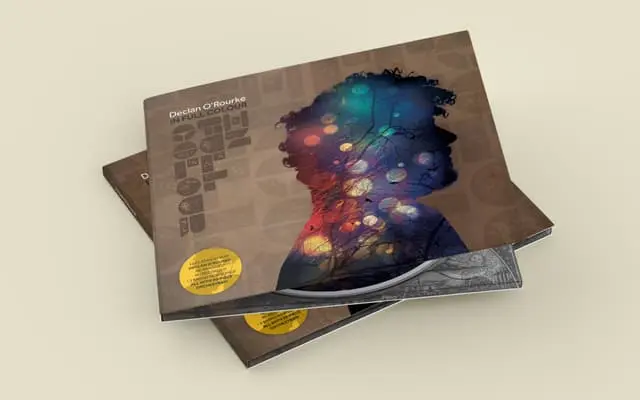
Woodkit Reprint
A modular wood type revival system from Typotheque, structured around interchangeable alphabets, blocks, ornaments and figures designed for letterpress-style layering.
The Woodkit family is organised as a system of components rather than weights, with each subfamily offering Alphabet A, Alphabet B, Blocks, Ornaments and Figures as separate purchasable units. Three subfamilies cover different printing effects: Reprint, Solid and Print. The city-named sub-units (Amsterdam through Fortaleza) allow selective purchase of individual component sets for layered, letterpress-inspired composition.
Woodkit Reprint is a modular display system emulating historical wood type and letterpress printing, organised into alphabets, blocks, ornaments and figures rather than conventional typographic weights.